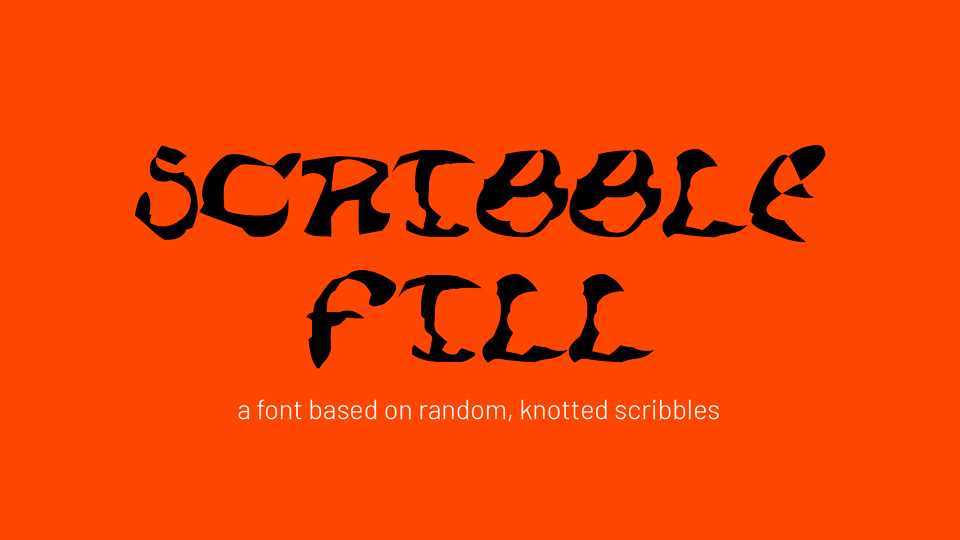
Download Scribble Fill font, a display typeface in one weight based an exercise in which random, knotted scribbles were filled in to create letterforms.
Designer: Rory King